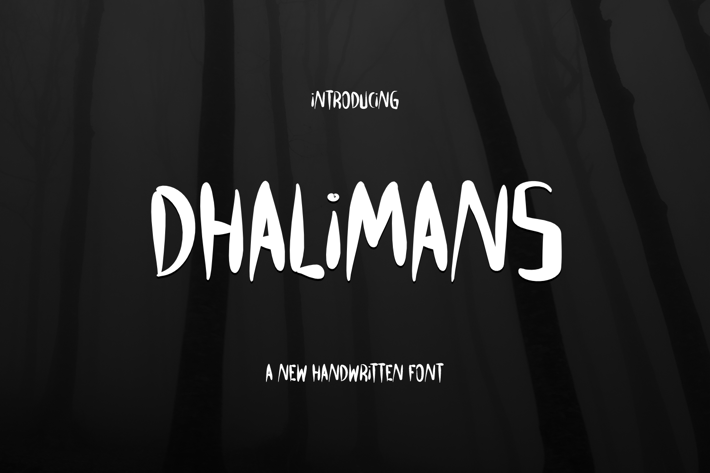
Dhalimans Font
Very suitable for flyer, posters, novel, letterhead, or any design requirements that you want to be awesome. ____________________________________________________________________________________________